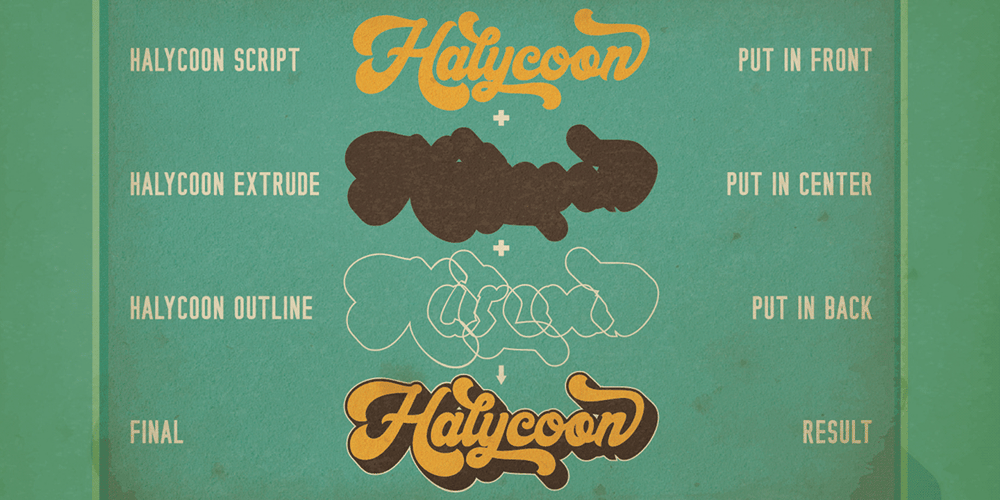
Halycoon Script
Halycoon Script Font Family was designed by Rinto Dwi Nugroho and published by Almeera Studio. Halycoon Script contains 3 styles and family package options. Halycoon script is one of my bold retro script fonts, comes with Extruded and outline Font versions. So you don’t need extra effort to create extrude and outline effects. Its features include: Stylistic Alternate, Swash, Ligatures, Stylistic set and multilingual support. You can choose alternatives for substitution with various variants with a total of 578 Glyphs.FEATURES : – Uppercase – Lowercase – Alternates – Number – Punctuation – Multilingual – PUA Encode – Opentype FeaturesThank you.